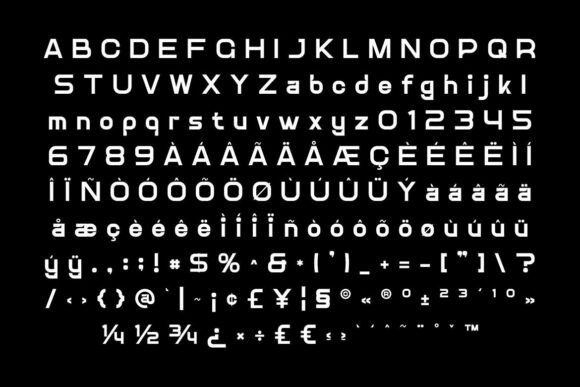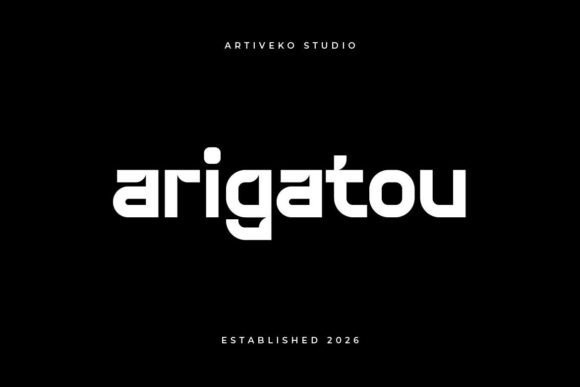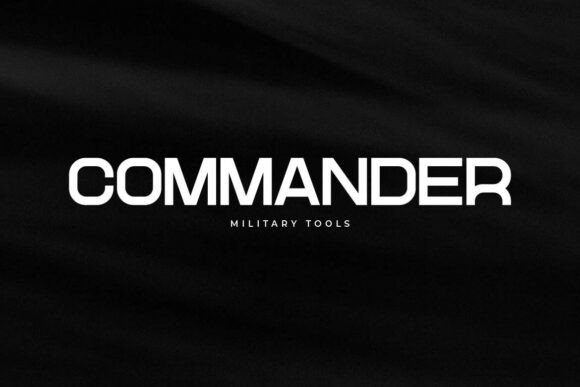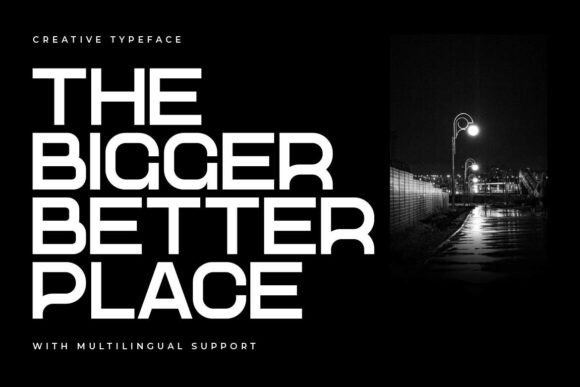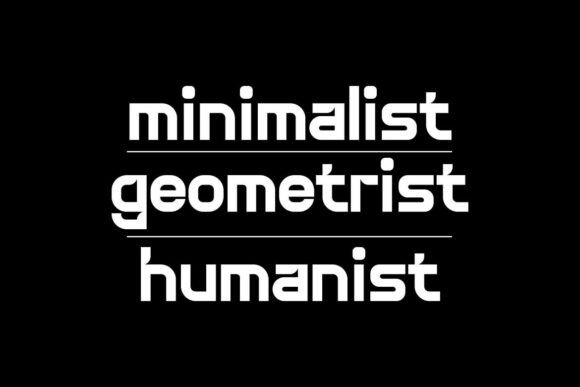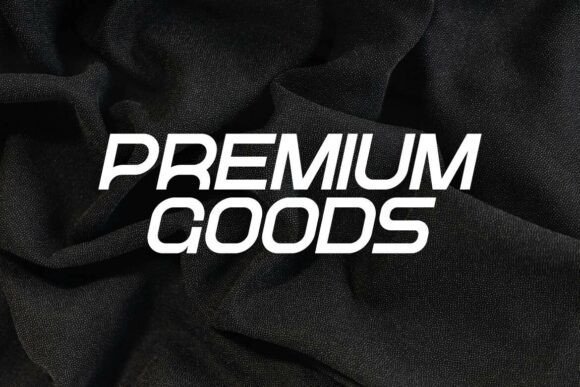
Introduction to Rokke Font
Have you ever been stuck in a creative rut, struggling to find the perfect font to bring your design project to life? I know I have. The blank canvas stares back at me, waiting for the perfect combination of style and substance to make it shine. But then, I stumbled upon Rokke Font – a modern sans serif typeface that changed everything.
With its bold character and contemporary style, Rokke Font brings a fresh and slightly edgy personality to modern design. Whether you’re working on a high-quality design resource or a creative project that requires a unique touch, Rokke Font is the perfect addition to your toolkit. Its clean structure and distinctive details make it a valuable asset for designers, and the best part? It’s available for free download, allowing you to experiment with a transparent background and see how it elevates your design.
Key Features of Rokke Font
- Rokke Font is a high-quality, free design resource ideal for creative projects requiring a unique touch.
- Features a transparent background, making it easy to integrate with various design elements.
- Rokke Font boasts a high resolution of 300 DPI, guaranteeing crisp and clear text even at larger sizes.
- This versatile font is perfect for designers working on a range of creative projects, from logos and branding to digital art and graphics.
- The font’s unique characteristics and stylish design make it an excellent addition to any design collection.
Honest Review: Rokke Font
As a designer, I’m always on the lookout for high-quality design resources to elevate my creative projects. The Rokke Font is a font I’ve recently had the chance to work with, and I’m excited to share my honest review.
- ✨ Unique and modern design aesthetic: The Rokke Font has a sleek, minimalist look that’s perfect for contemporary design projects.
- ✨ High quality: The font is crisp and clear, even when used at large sizes.
- ✨ Transparent background: The font’s transparent background makes it easy to customize and combine with other design elements.
- ⚠️ Limited language support: The Rokke Font currently only supports a limited range of languages, which may be a limitation for designers working on international projects.
Overall, I’m impressed with the Rokke Font’s design and quality. While it may have some limitations, it’s a great resource for designers looking for a modern, high-quality font for their creative projects. Plus, it’s available for free download, making it an excellent addition to any design arsenal.
Tips for Getting the Most Out of Rokke Font
To get the most out of Rokke Font, try using it with a transparent background to create a unique and eye-catching design. You can also experiment with different font sizes and styles to add depth and visual interest to your project.
Lato is a sans-serif font that’s perfect for creative projects that require a modern and elegant design. It’s a free download and a popular design resource, making it an excellent choice for designers looking for a high-quality font. Lato is ideal for use on a transparent background, allowing the text to stand out.